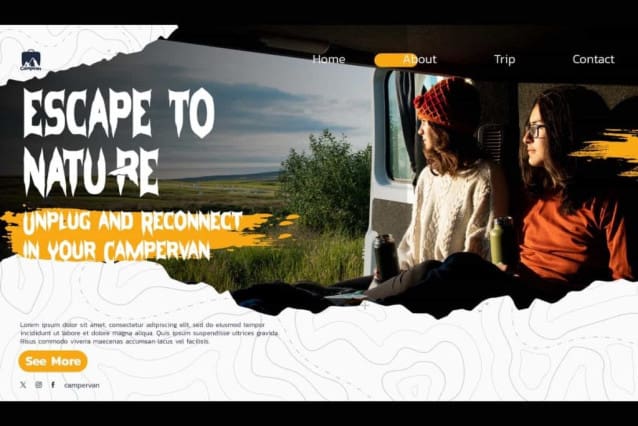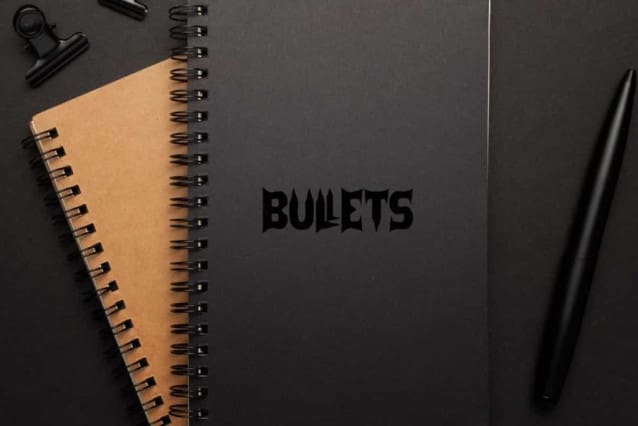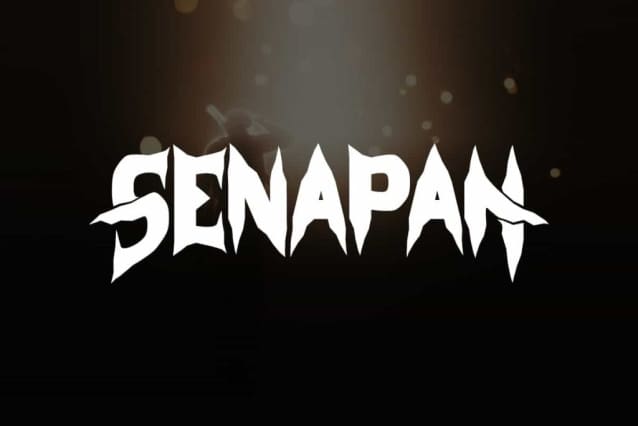
Senapan Display Font
Senapan Display Font is a awful black metal font that has a unique shape and looks sharp. This display font is suitable for any project, such as clothing brand, coffee shop, event or festival, game, graphic design, outdoor activities, racing, sports, and more.
Senapan Display Font includes full set of ALL CAPS for Uppercase and Lowercase Basic Characters with different sizes, Numbers, Punctuation and Symbols. This font also contained a lot of Alternate characters. Perfect for billboard, branding, brochure, cards, custom design, editorial design, header, label, logo, poster, screen print, sleeve paper, sticker, website, or just art text stringing words.